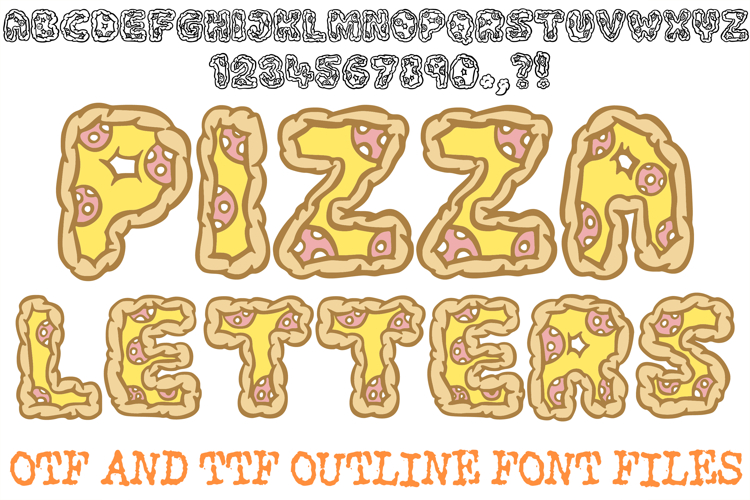
The Pizza Letters Font is a deliciously playful novelty display typeface that transforms every character into a gourmet slice. Featuring thick, doughy crust borders, a golden layer of melted cheese, and scattered mini pepperoni rounds embedded right into the letterforms, this font is the ultimate ingredient for designers developing fast-food menus, pizzeria branding, birthday party invitations, and fun kitchen apparel.
The design captures a savory, animated spirit where each letter looks freshly baked and bursting with flavor. The bumpy, hand-drawn outer crust serves as a natural border, providing massive visual weight that makes titles effortlessly jump out. Whether you are creating social media graphics for a local restaurant or designing quirky stickers for food enthusiasts, this bold typeface serves up an instant smile alongside great legibility.
Mouth-Watering Crust Outlines: The irregular, textured outer crust acts as a chunky frame for each character, ensuring headlines carry excellent visual weight and high impact.
Topping-Infused Letterforms: Integrated pepperoni and cheese details turn standard text into a fun, illustrative experience that tells a story at a single glance.
Playful Food-Themed Personality: Perfectly tailored for lighthearted culinary projects—from food truck wraps and custom aprons to menu item listings and recipe cards.
Solid Display Impact: Despite the rich interior food details, the clean overall structure maintains recognizable shapes, keeping your messaging clear across print and digital media.